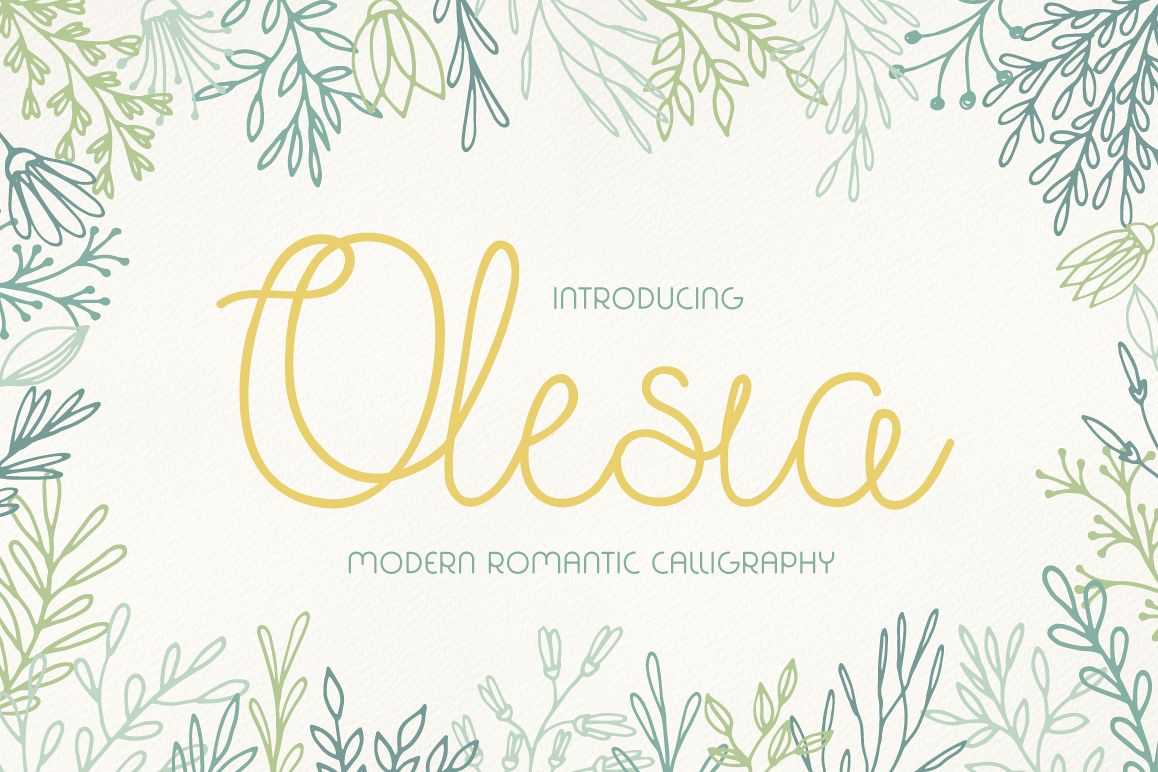
Olesia Script
I present to you my font. It's Olesia!
This refined and romantic font will help you in your design.
Also, especially for this font were drawn by hand, this small collection of leaves. Are included in this package for free.